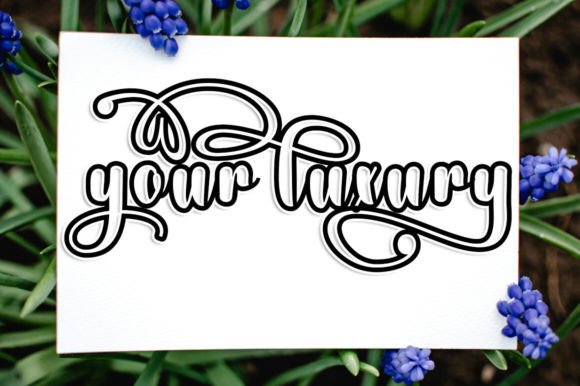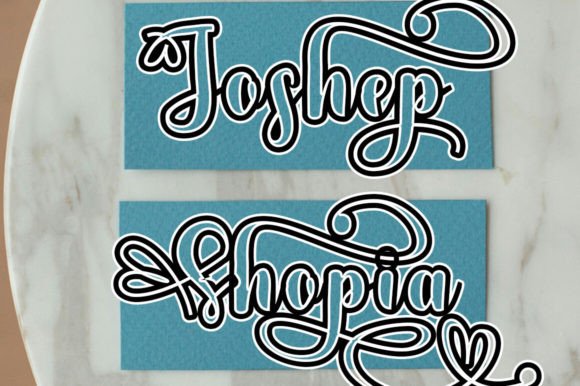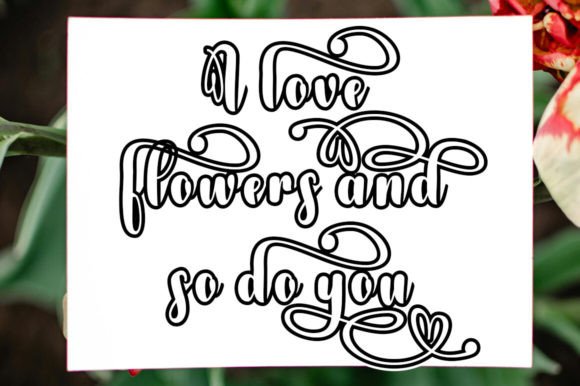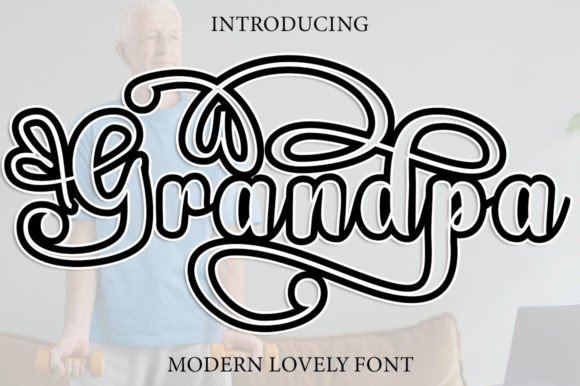
Introduction to Grandpa Outline Font
Grandpa Outline is a lovely script font that is stylish and very elegant.
It looks stunning on wedding invitations, thank you cards, quotes, greeting cards, logos, business cards, and any other design that requires a handwritten touch This font is PUA encoded which means you can access all glyphs and alternates easily.
Key Features of Grandpa Outline Font